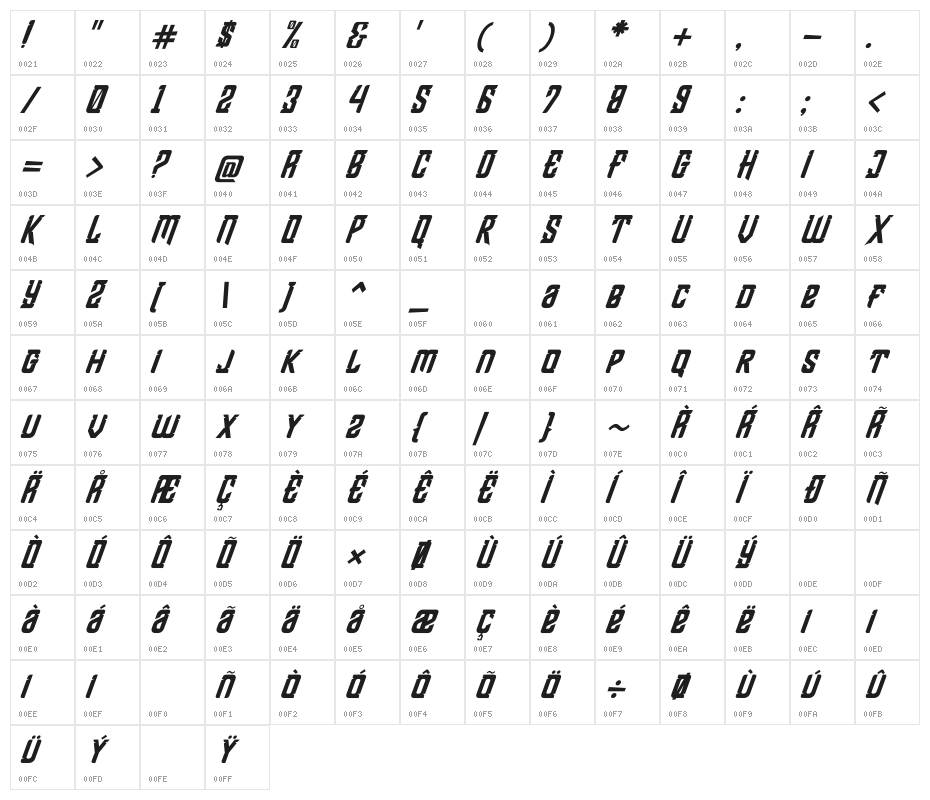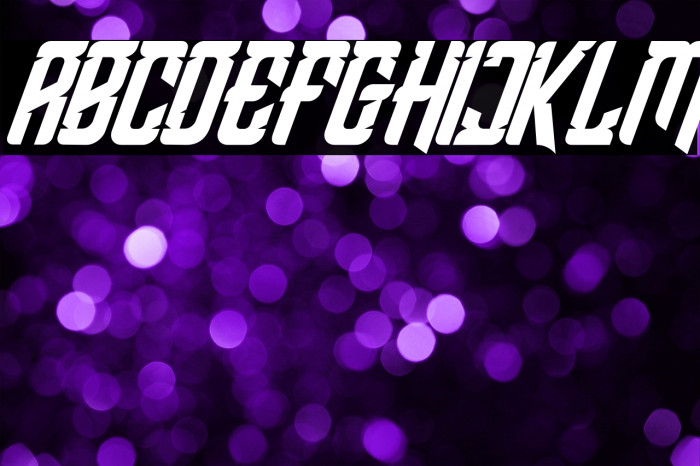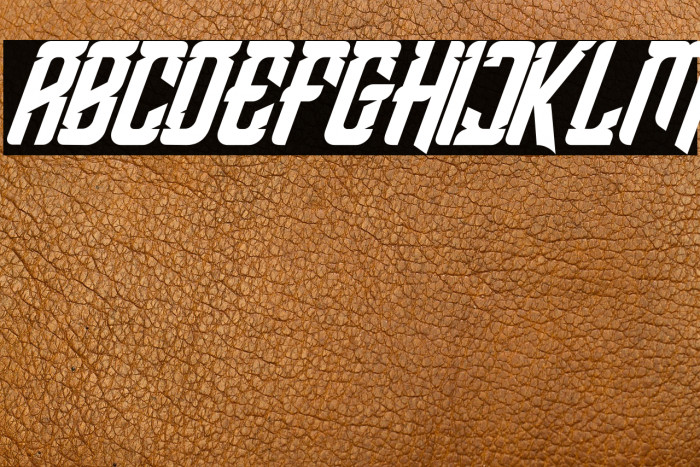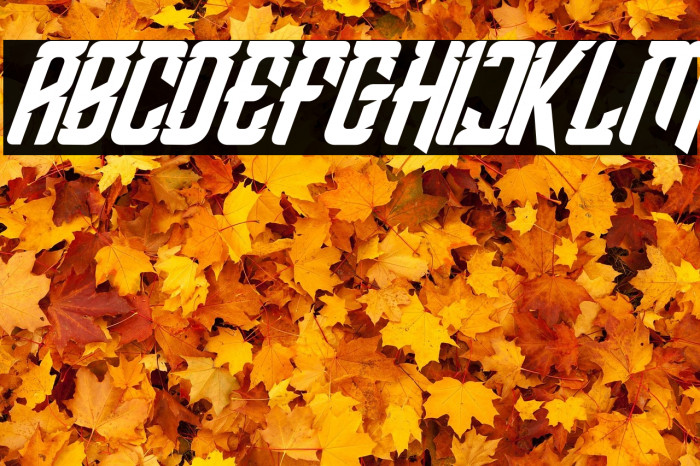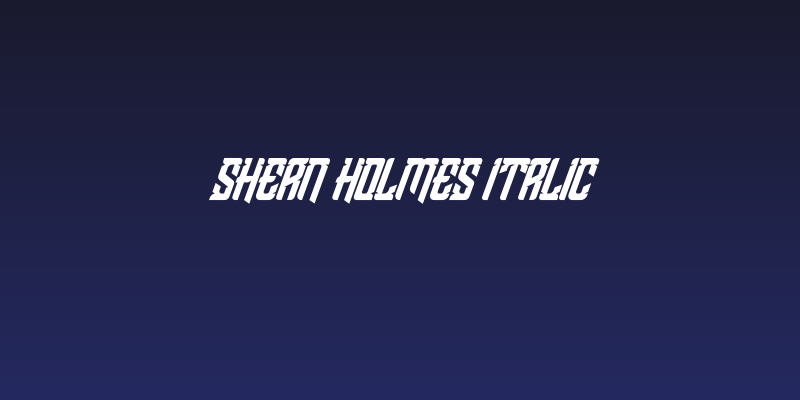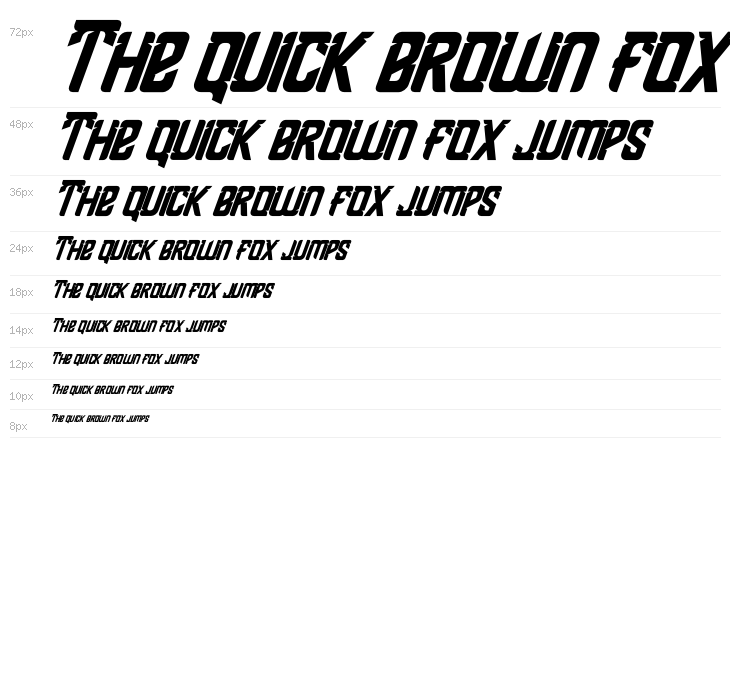
Shean Holmes Italic Font
Shean Holmes Italic Description
This font features a bold and dynamic style with a strong italic slant, giving it a sense of motion and energy. The characters are thick and robust, with sharp angles and a slightly condensed form. The uppercase and lowercase letters maintain a consistent style, with a unique flair in the design of certain characters, such as the 'G' and 'Q'. The numerals are equally bold, ensuring visibility and impact. Special characters are designed to match the overall aesthetic, making this font suitable for attention-grabbing designs.
| Proposed Projects | Ideal for sports branding, dynamic posters, and modern advertising campaigns. |